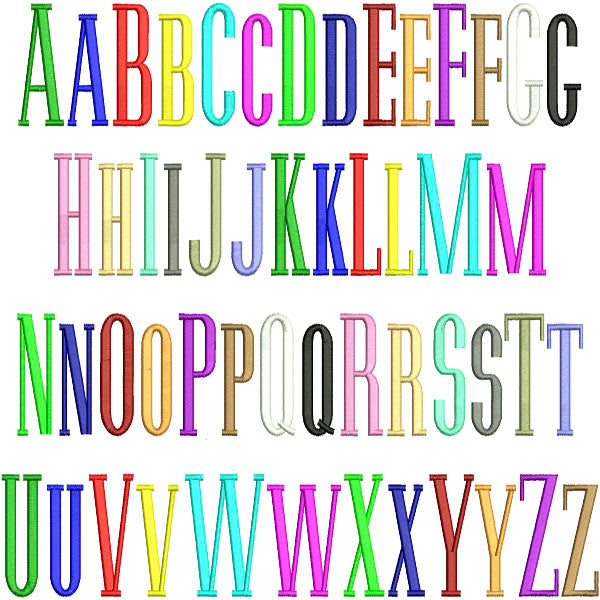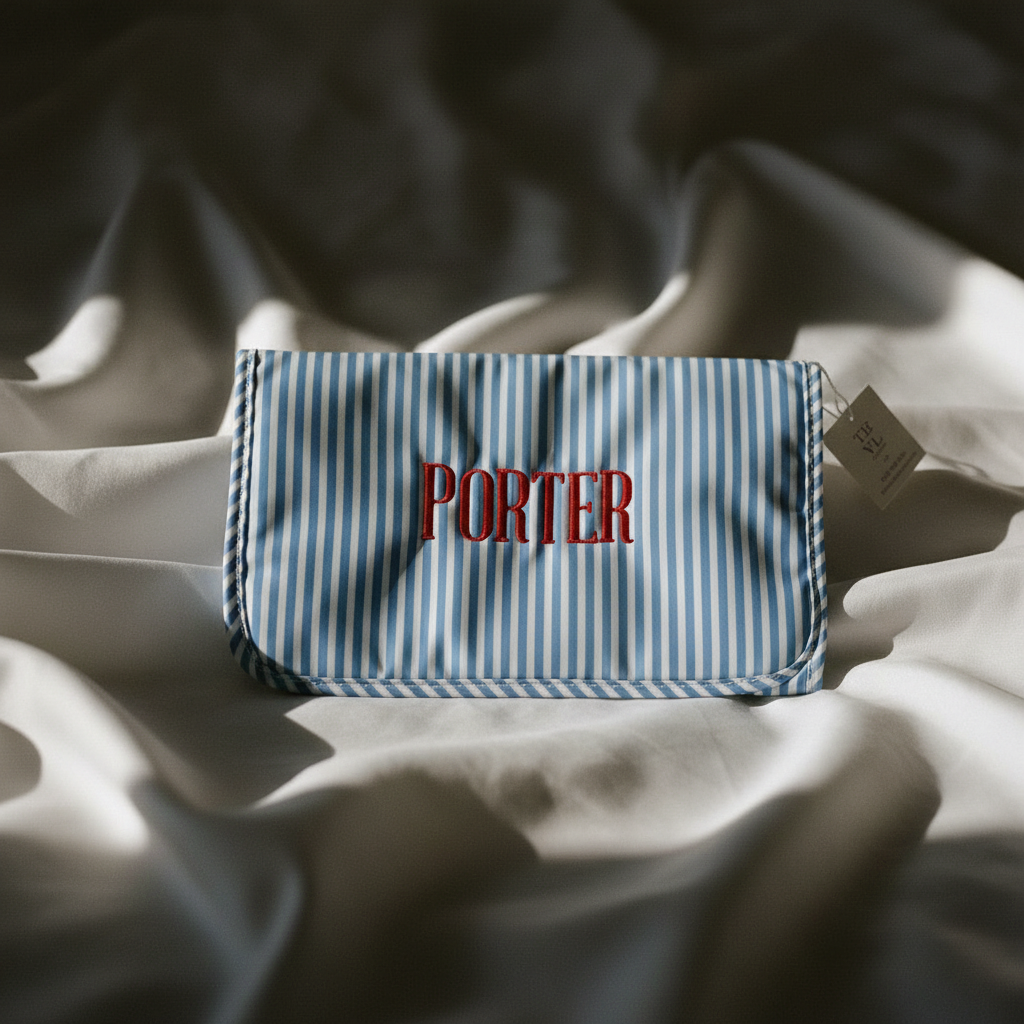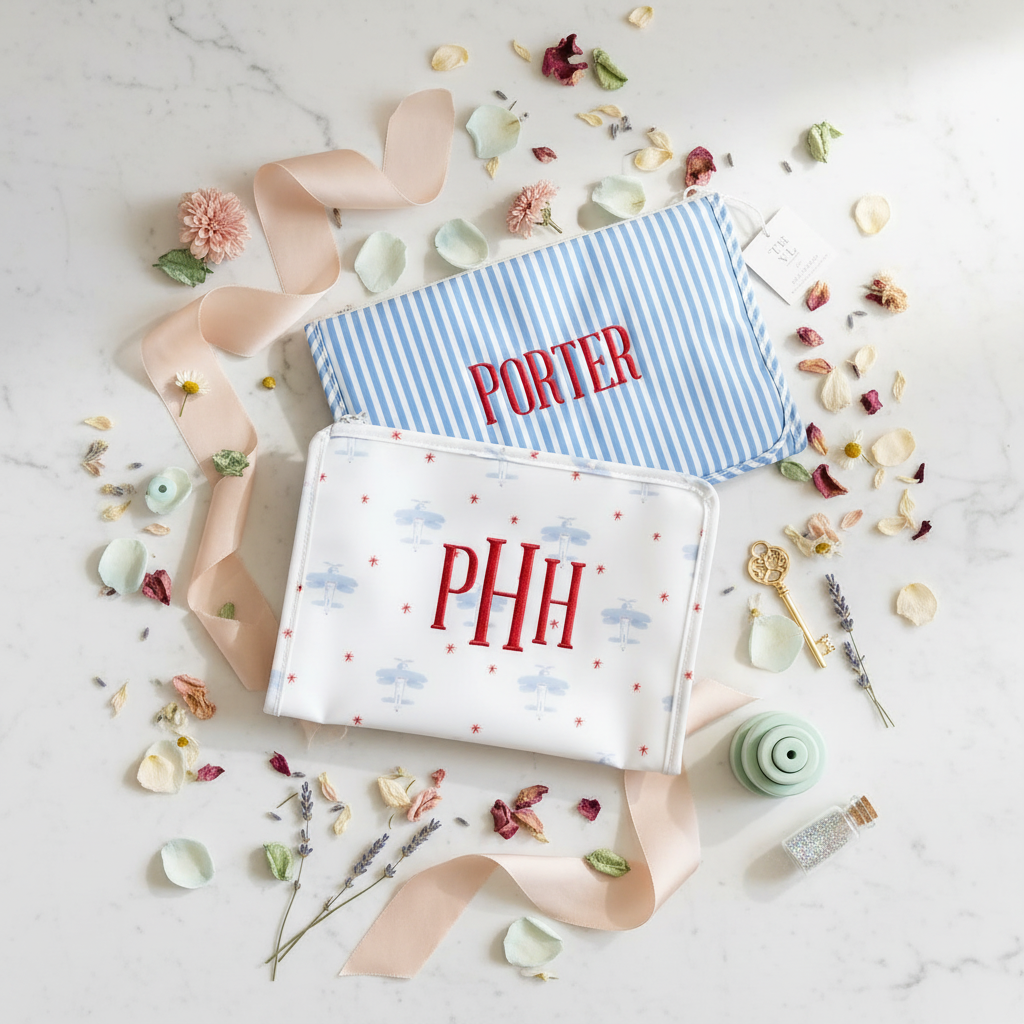
Introducing the Porter Font — a premium embroidery font with a bold, elegant serif style that blends classic sophistication with modern appeal. Perfect for monograms, personalized bags, accessories, and special gifts.
- Style: Bold serif with a classic-modern aesthetic
- Best for: Monograms, name embroidery, decorative stitching
As shown in the photo, the Porter font makes a stunning statement on striped and patterned fabric items — ideal for personalized gifts that leave a lasting impression.